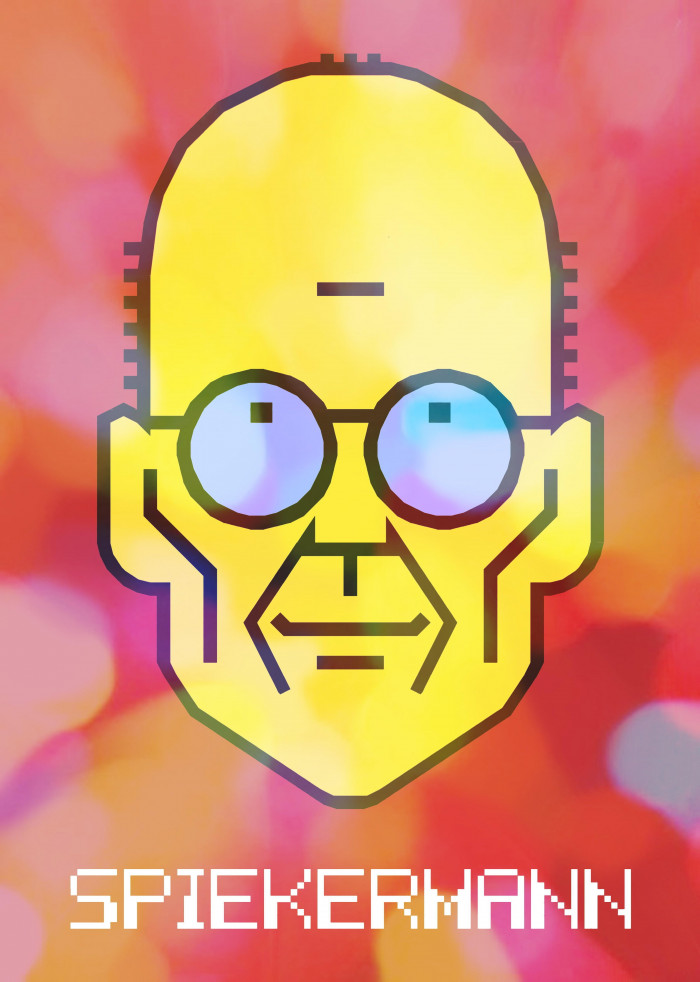
• NumbersComp's brief saids: "As always, please do interpret the theme as loosely, literally or figuratively as you wish – it’s there only to inspire, not to confine." That's my point. Here in FS, we can also draw with NUMBERS (= brick coordinates). This is a tribute: my humble fontstructization of a linear portrait of the great Master Erik Spiekermann made by Bill Dawson (©2015). To get the full image, please type: ABCDE (return) FGHIJ (return) KLMNO (return) PQRST (return) UVWXY (return) Zabcd (return) efghi -these last five glyphs are for the name, if you want add it-. And don't forget to adjust the line spacing if you want a good result when printing it. Enjoy.
NumbersComp's brief saids: "As always, please do interpret the theme as loosely, literally or figuratively as you wish – it’s there only to inspire, not to confine." That's my point. Here in FS, we can also draw with NUMBERS (= brick coordinates). This is a tribute: my humble fontstructization of a linear portrait of the great Master Erik Spiekermann made by Bill Dawson (©2015). To get the full image, please type: ABCDE (return) FGHIJ (return) KLMNO (return) PQRST (return) UVWXY (return) Zabcd (return) efghi -these last five glyphs are for the name, if you want add it-. And don't forget to adjust the line spacing if you want a good result when printing it. Thanks for sharing it.